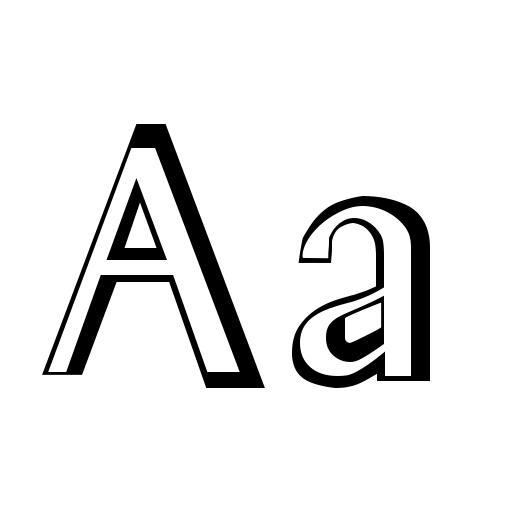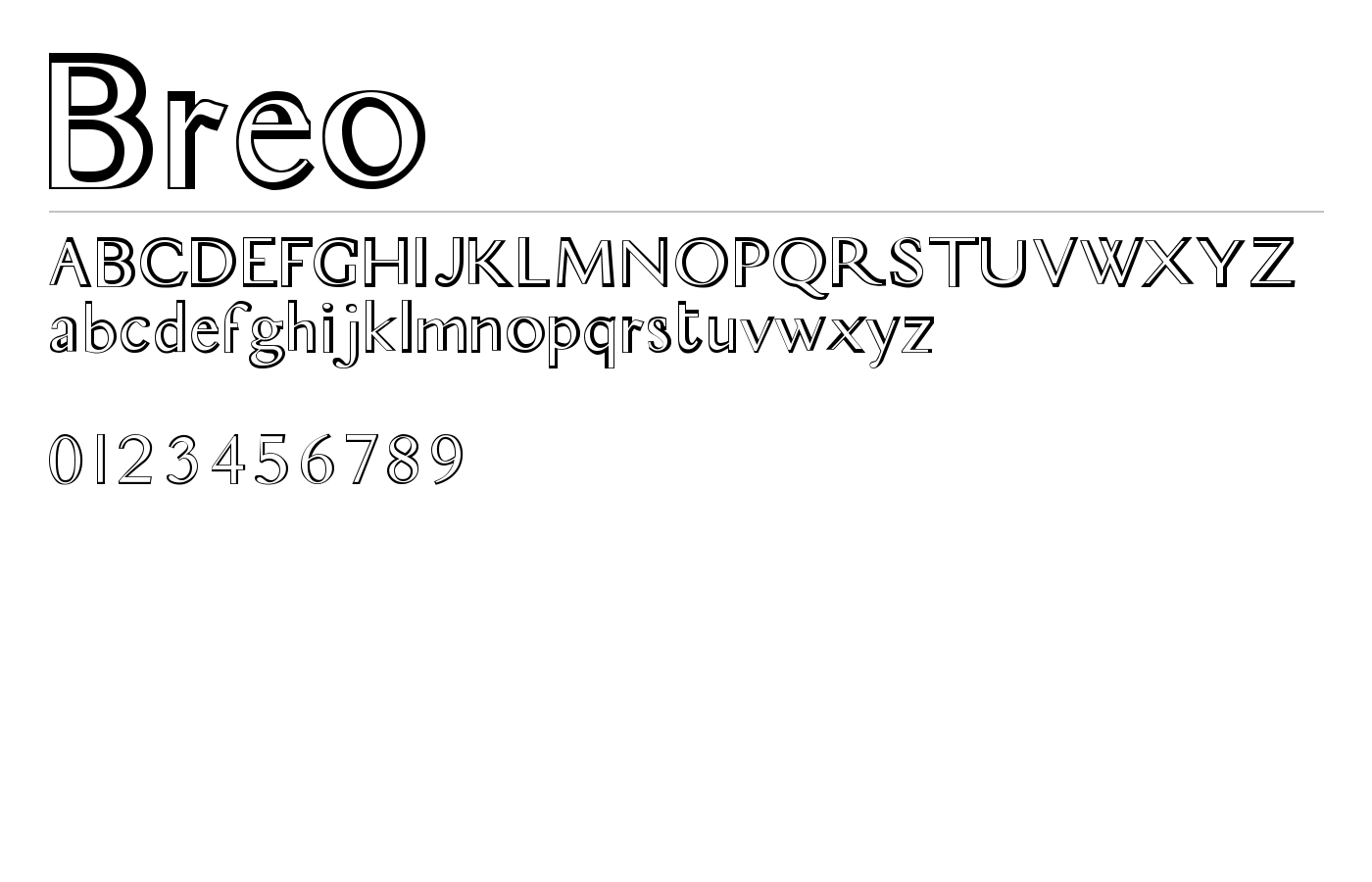
Breo is a modern serif font with a unique blend of classic and contemporary styles, featuring distinct outline strokes that give it a playful yet sophisticated look. Its regular weight and medium contrast make it highly readable while the elegant, single-story letterforms and curved terminal details add a touch of charm. This font works well for creative branding, eye-catching headlines, and editorial projects that aim to stand out with a stylish but approachable personality.
Breo Font